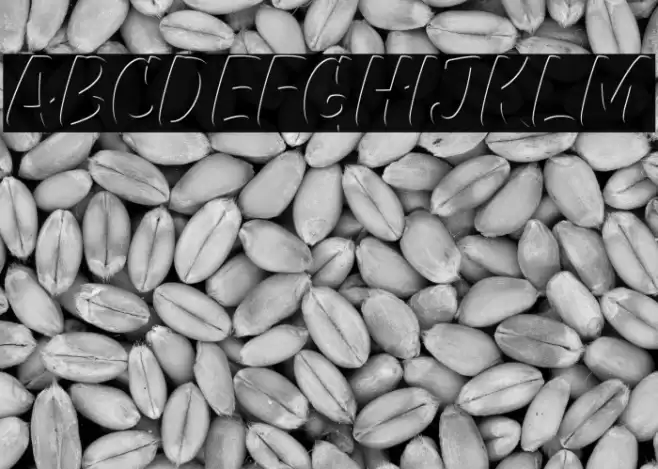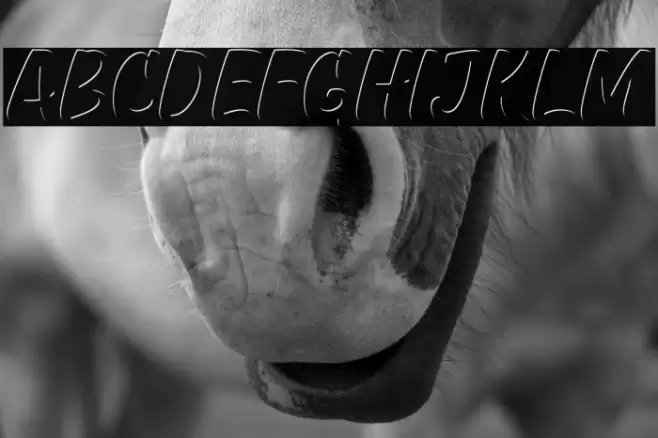
GreatHustleInner Font
GreatHustleInner Description
This font exhibits a dynamic and energetic script style, characterized by its fluid, cursive strokes and a sense of motion. The letters are slightly slanted, adding to the impression of speed and movement. Each character is crafted with a smooth, continuous line that mimics the flow of handwriting. The uppercase letters are bold and prominent, while the lowercase letters maintain a consistent rhythm and balance. The numerals and special characters are designed to complement the overall style, ensuring a cohesive look. This font's unique personality makes it stand out, offering a modern twist on traditional script fonts.
A dynamic script font with fluid, cursive strokes and a modern flair from Uncategorized fonts.
- Font: GreatHustleInner
- Proposed Projects: Ideal for branding, invitations, greeting cards, and social media graphics.
- Use Case: Logos, Headlines, Decorative text